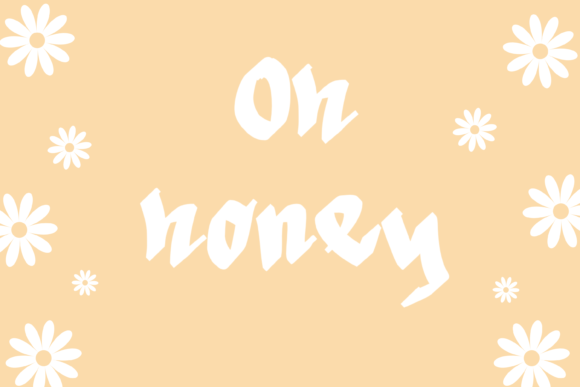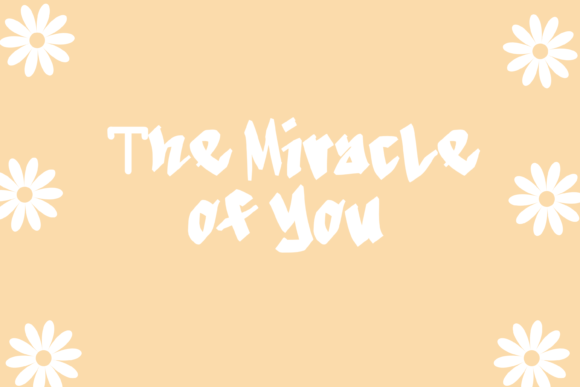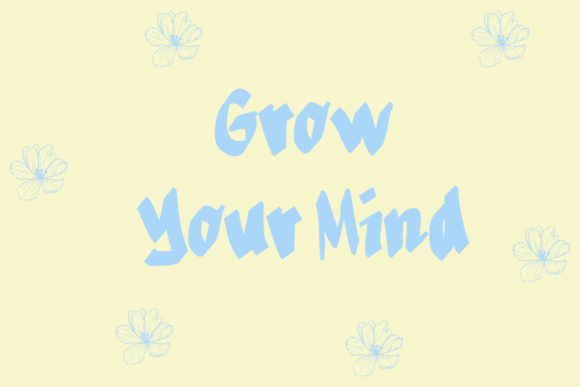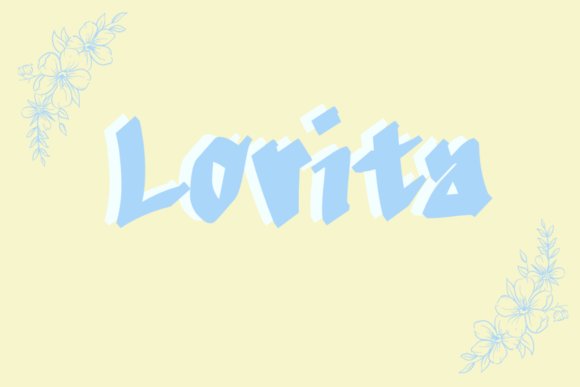
Introduction to Lorita Font
Lorita is an incredibly quirky and sweet handwritten font.
Whether you use it for cartoon related designs, children games or just any creation that requires a lovely touch, this font will be an amazing choice .
Key Features of Lorita Font
Why Choose Lorita Font?
Lorita Font offers exceptional quality and versatility, making it a valuable addition to your design toolkit. Whether you’re creating for personal projects or commercial use, Lorita Font delivers professional results.